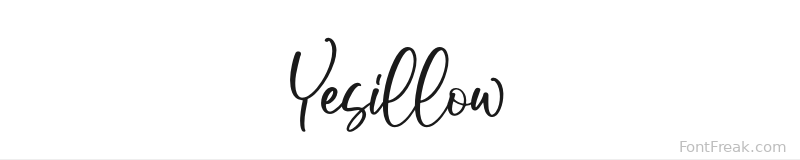
Yesillow
About Yesillow
The Yesillow font, crafted by Perspectype Studio in 2021, is a charming handwritten typeface that exudes warmth and personality. This script font features fluid, organic strokes that provide a relaxed yet elegant aesthetic, making it an excellent choice for various design projects. The moderate stroke weight combined with subtle contrast enhances its readability while maintaining a whimsical appearance. The generous spacing between characters adds to its inviting feel, allowing for seamless integration into both digital and print formats.
Ideal for personal and commercial use, Yesillow shines in several specific applications. It is perfect for wedding invitations, where its graceful curves can evoke romance and individuality. Additionally, it works beautifully for restaurant menus, lending a touch of artisanal flair that enhances the dining experience. Graphic designers may find it particularly appealing for branding projects, as it adds a unique character that can help a business stand out. Content creators can also use Yesillow for social media graphics, ensuring their posts capture attention with a stylish and contemporary look.
The target audience for this font includes graphic designers, small business owners, and content creators seeking to elevate their projects with a distinctive handwritten style. Whether you are designing an inviting flyer or creating an engaging online post, Yesillow caters to those who appreciate creativity and authenticity in their designs.
In conclusion, the Yesillow font stands out not only for its aesthetic charm but also for its versatility across various design contexts. Its handcrafted quality and approachable character make it a valuable addition to any designer's toolkit. Don't miss the opportunity to explore the possibilities with the Yesillow font free download and bring your creative visions to life.